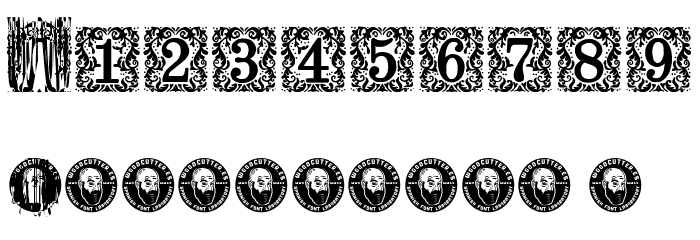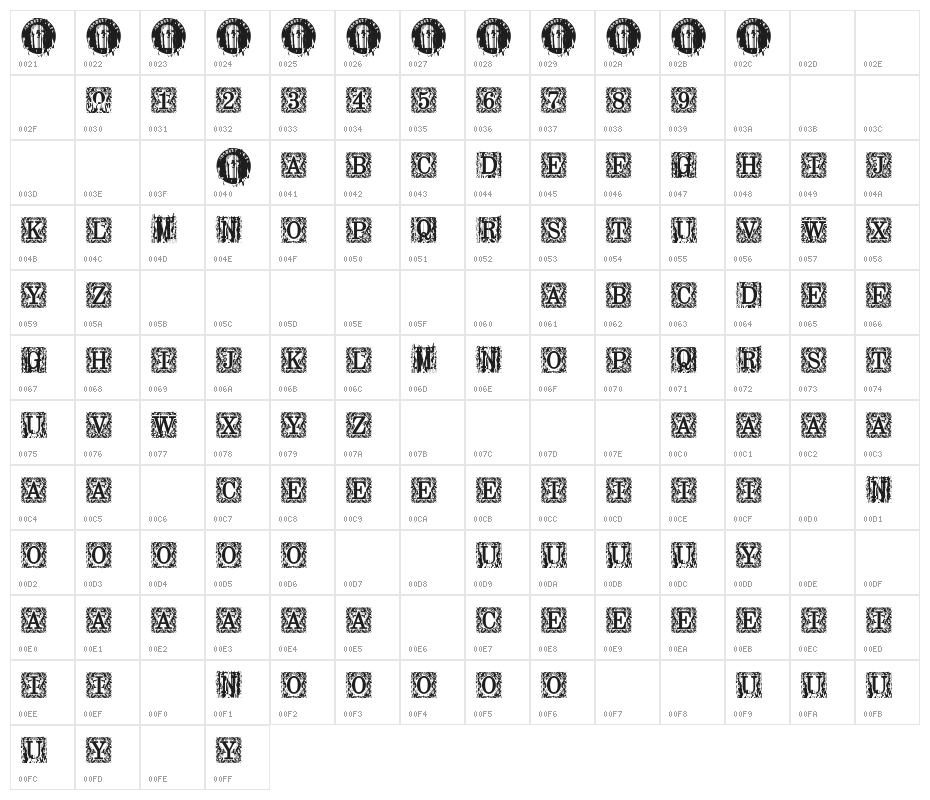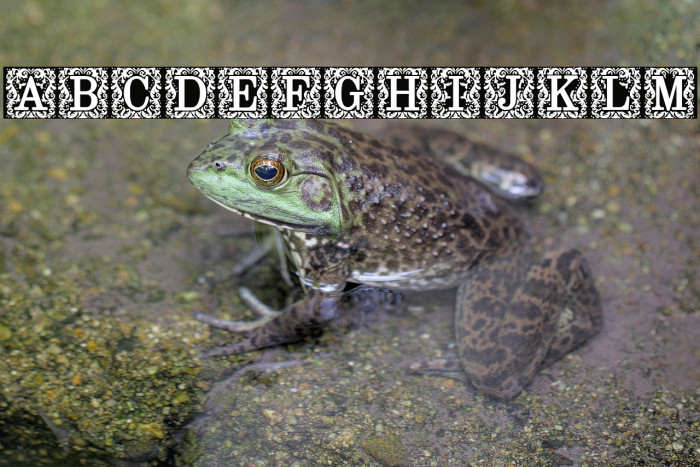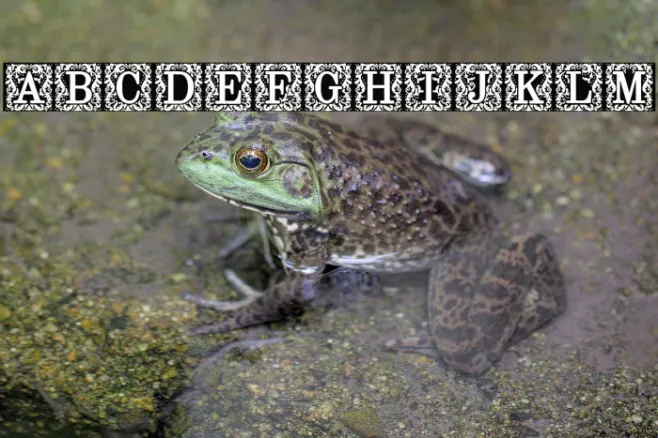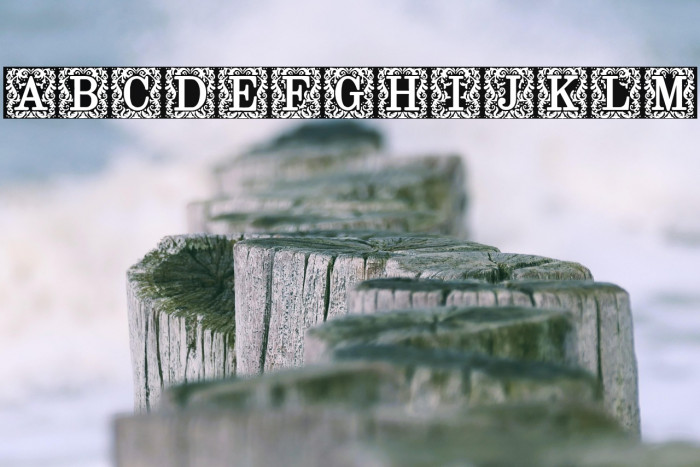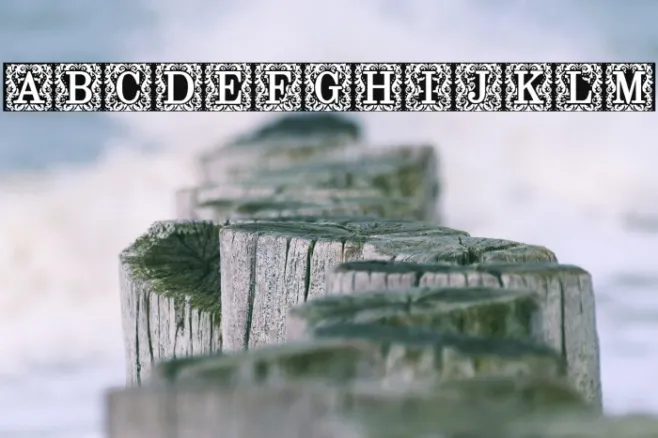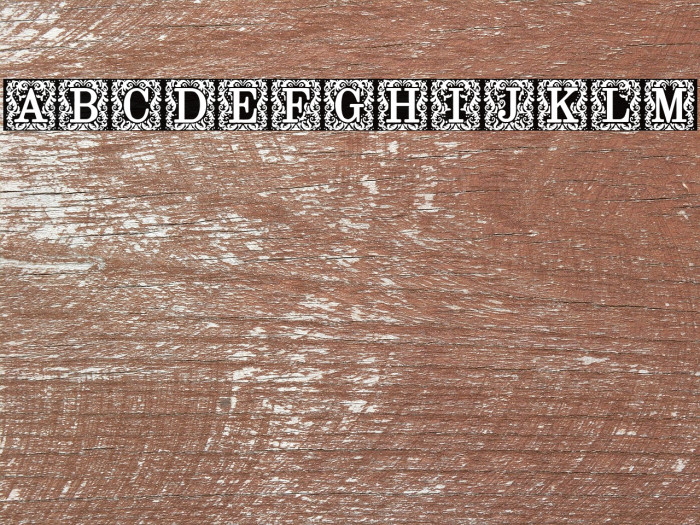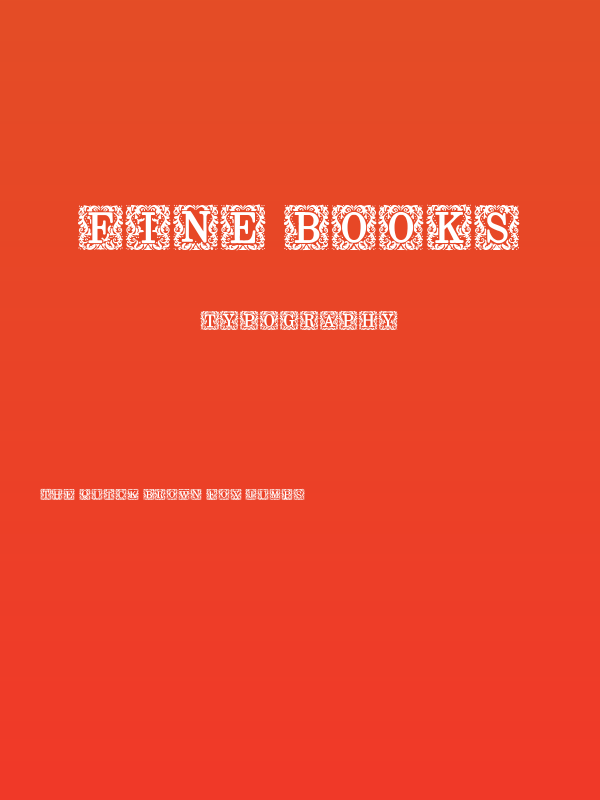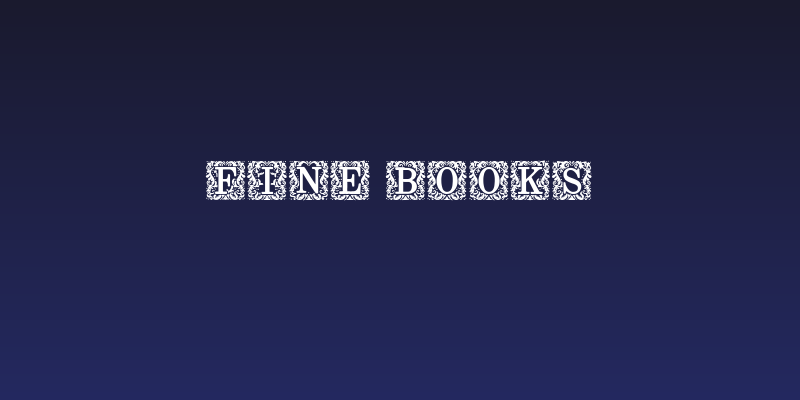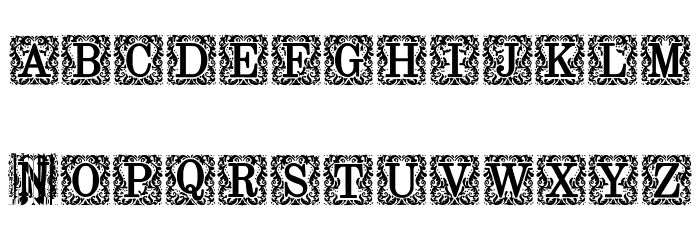
Fine Books Font
This font features an ornate and decorative style, with each character enclosed in a detailed, intricate border reminiscent of vintage bookplates or classical engravings. The letters are bold and capitalized, with a strong presence that commands attention. The numbers and special characters follow the same decorative theme, ensuring consistency throughout the typeface. The overall design evokes a sense of elegance and sophistication, making it suitable for projects that require a touch of classic charm.
| Proposed Projects | Ideal for book covers, vintage-themed designs, invitations, and decorative signage. |